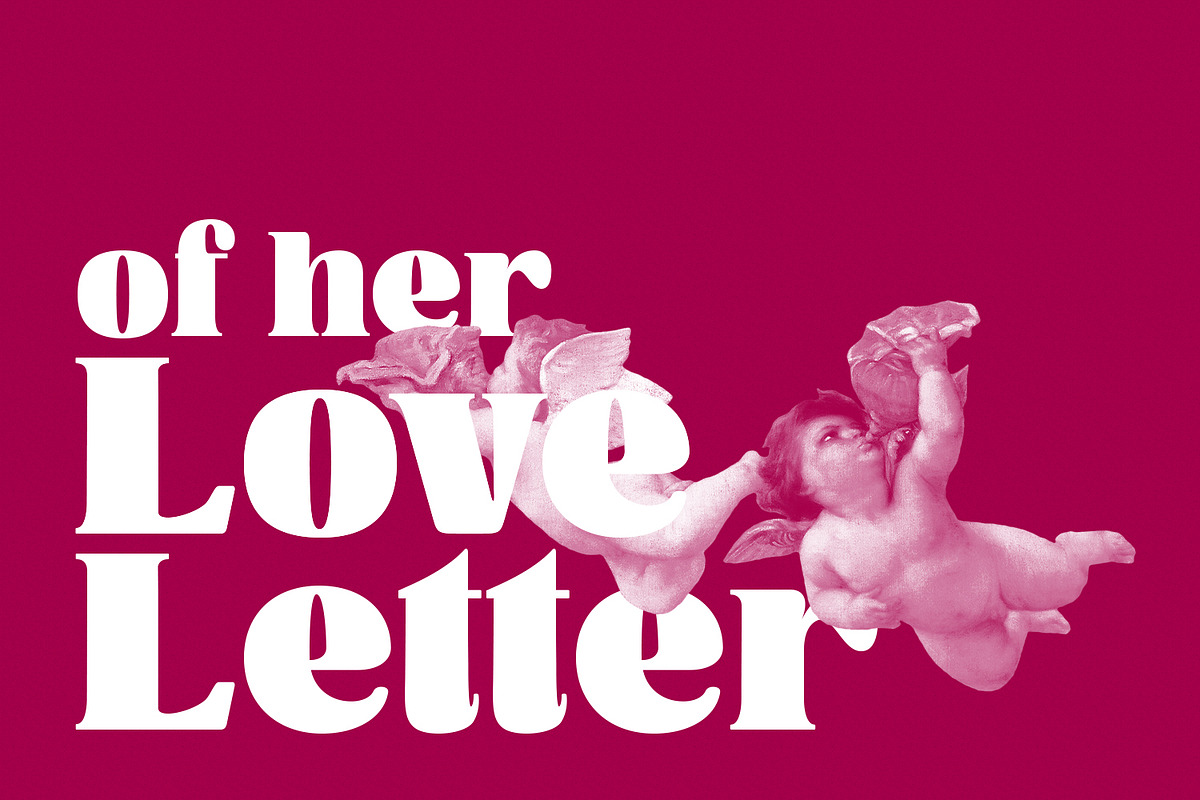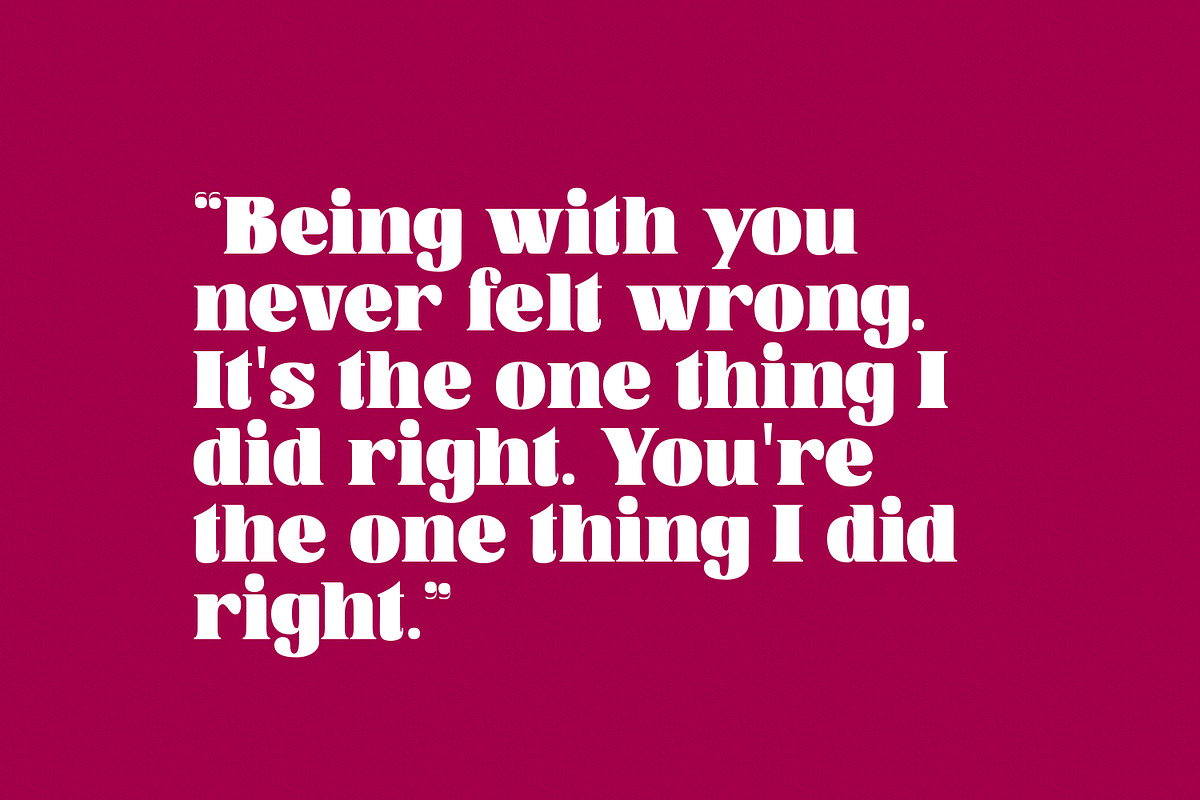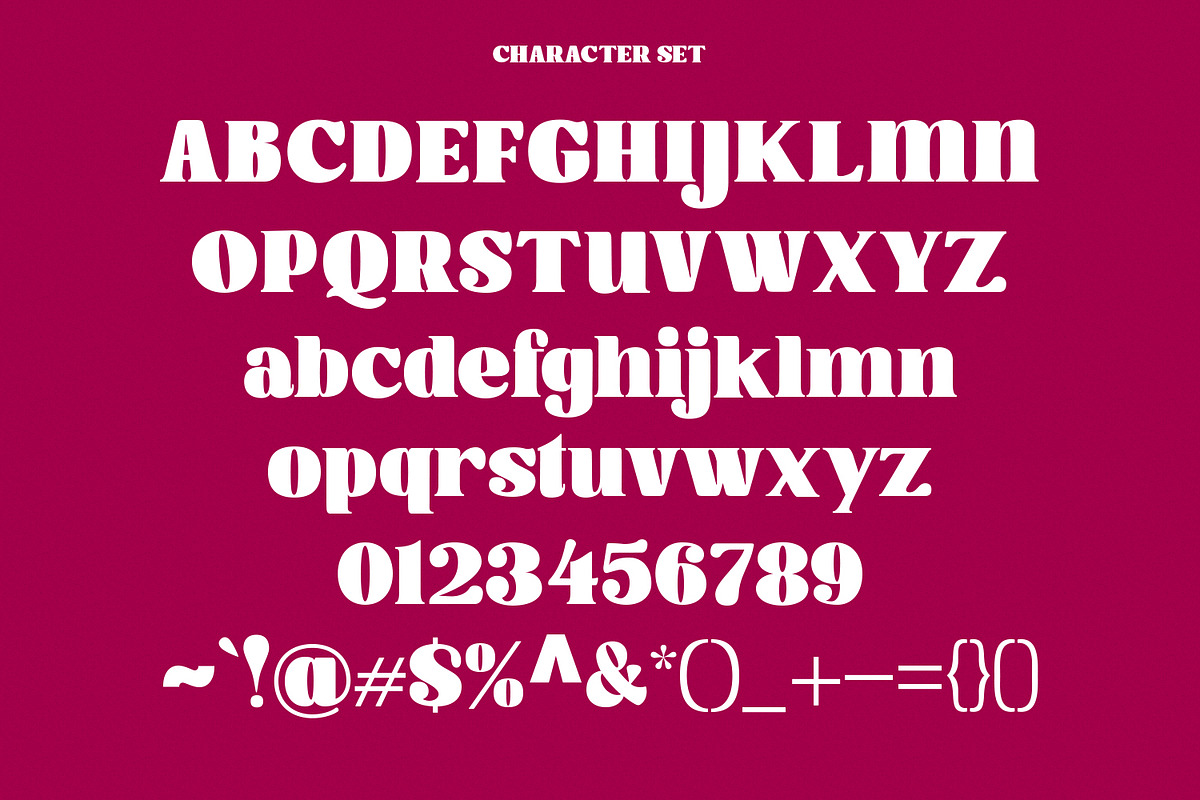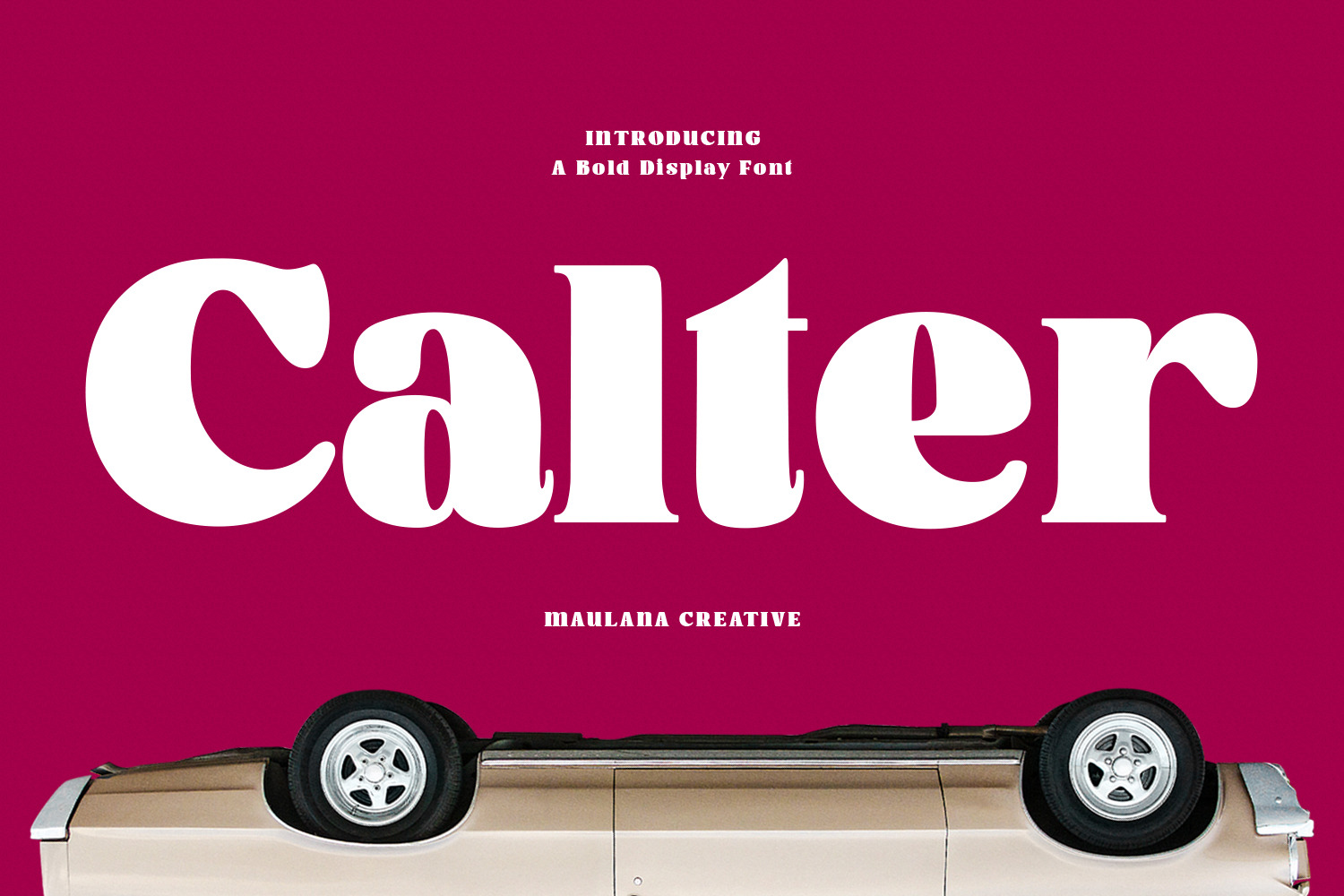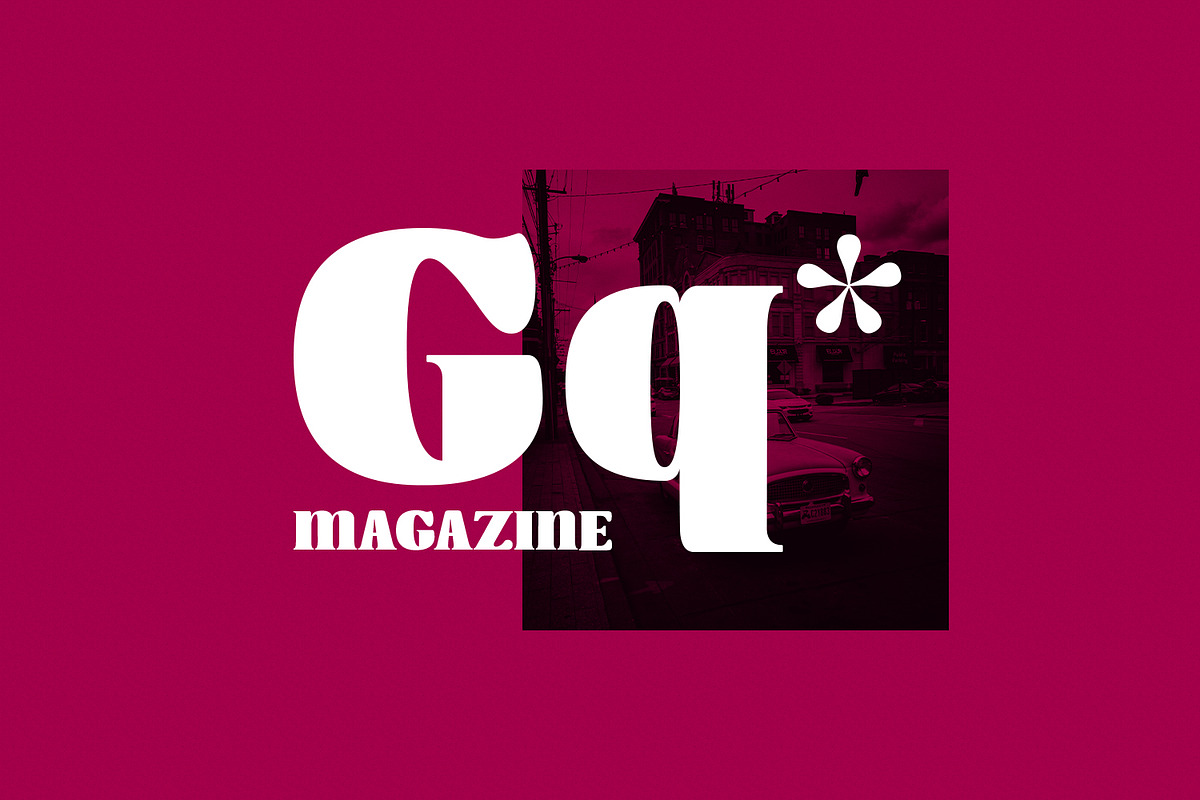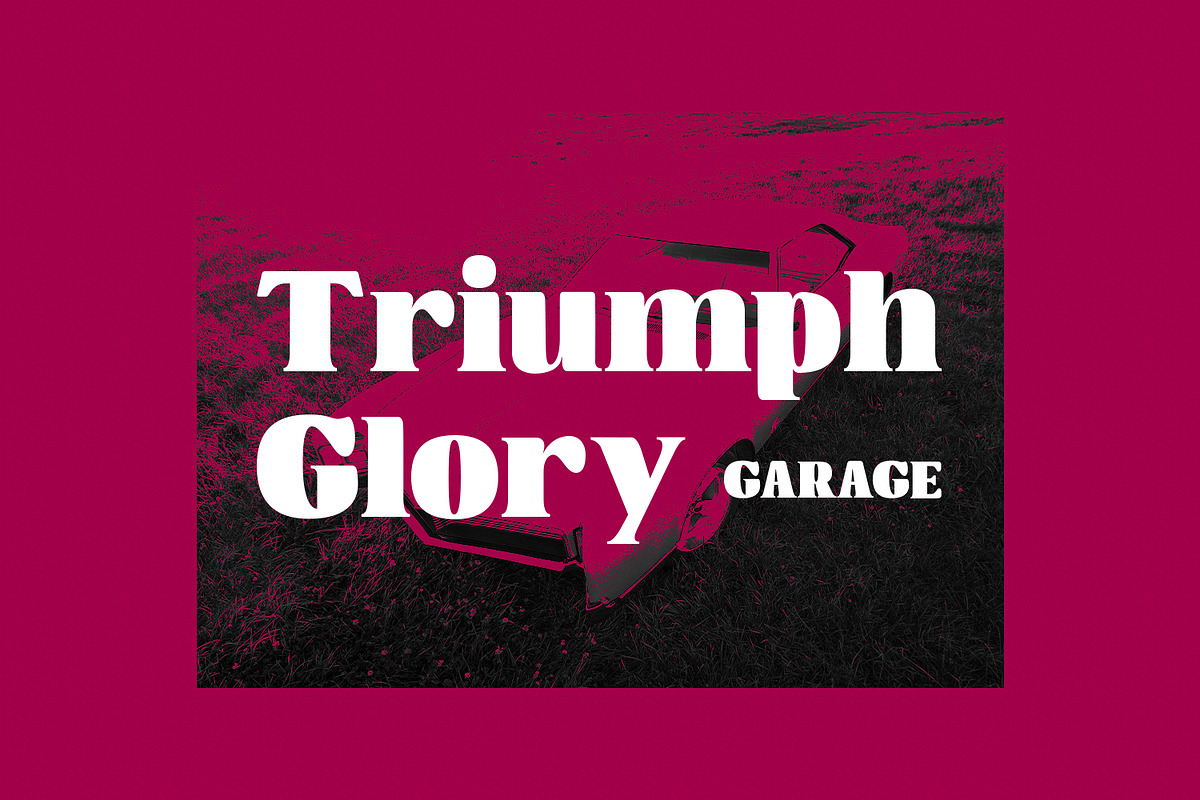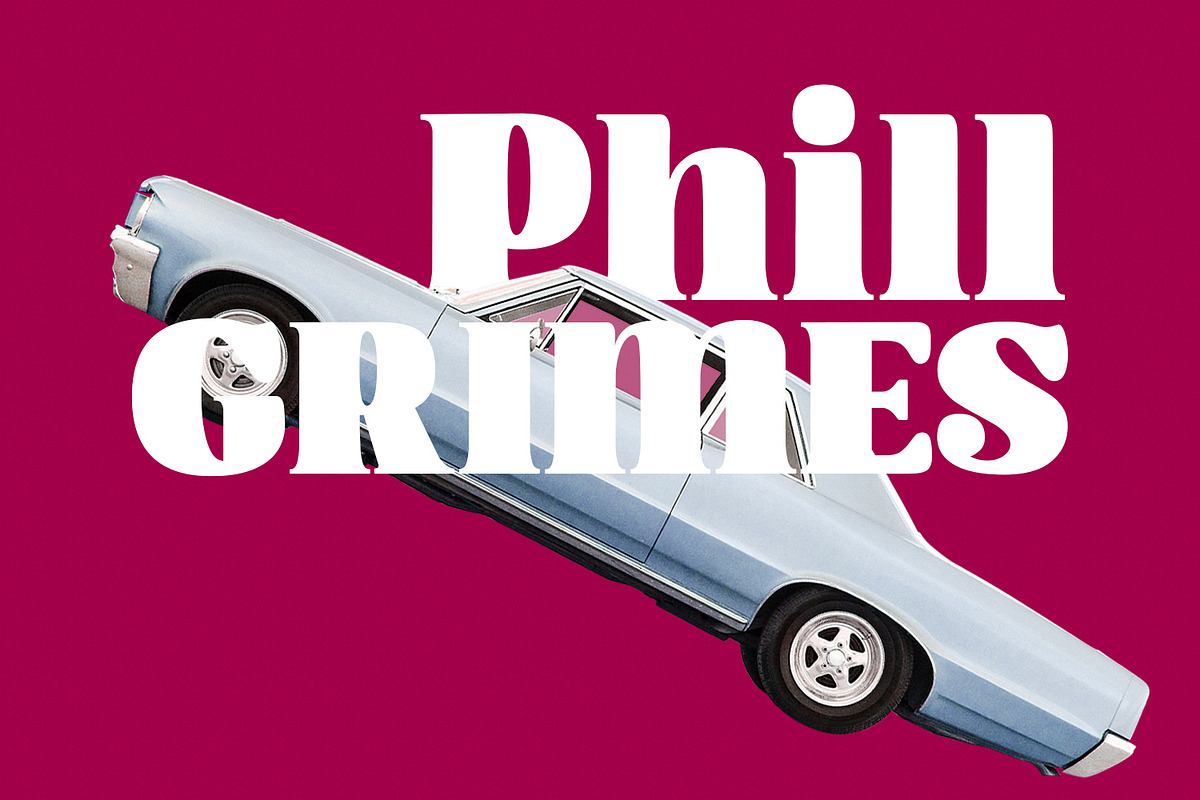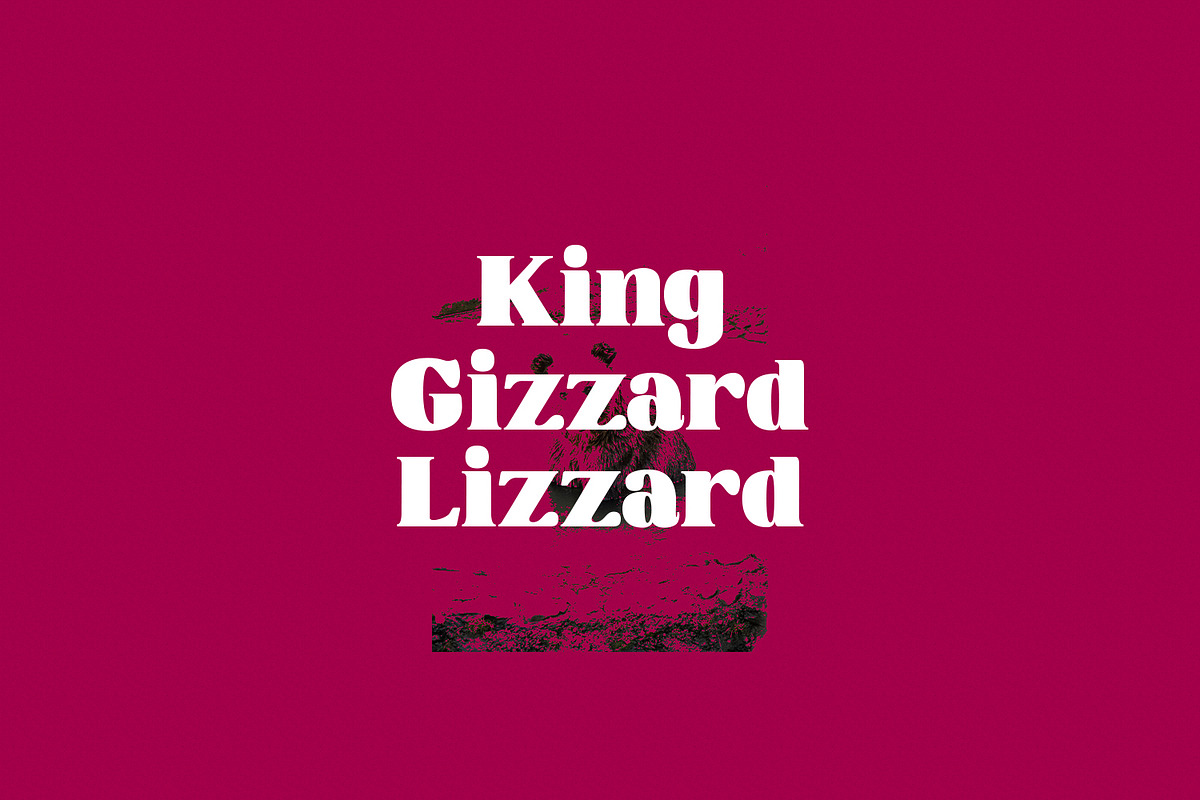
Calter Serif Bold Display Font
Calter is a modern display serif font. With bold contrast stroke, fun character with a bit of ligatures. To give you an extra creative work. Calter font support multilingual more than 100+ language. This font is good for logo design, Social media, Movie Titles, Books Titles, a short text even a long text letter and good for your secondary text font with sans or serif. Make a stunning work with Calter font.